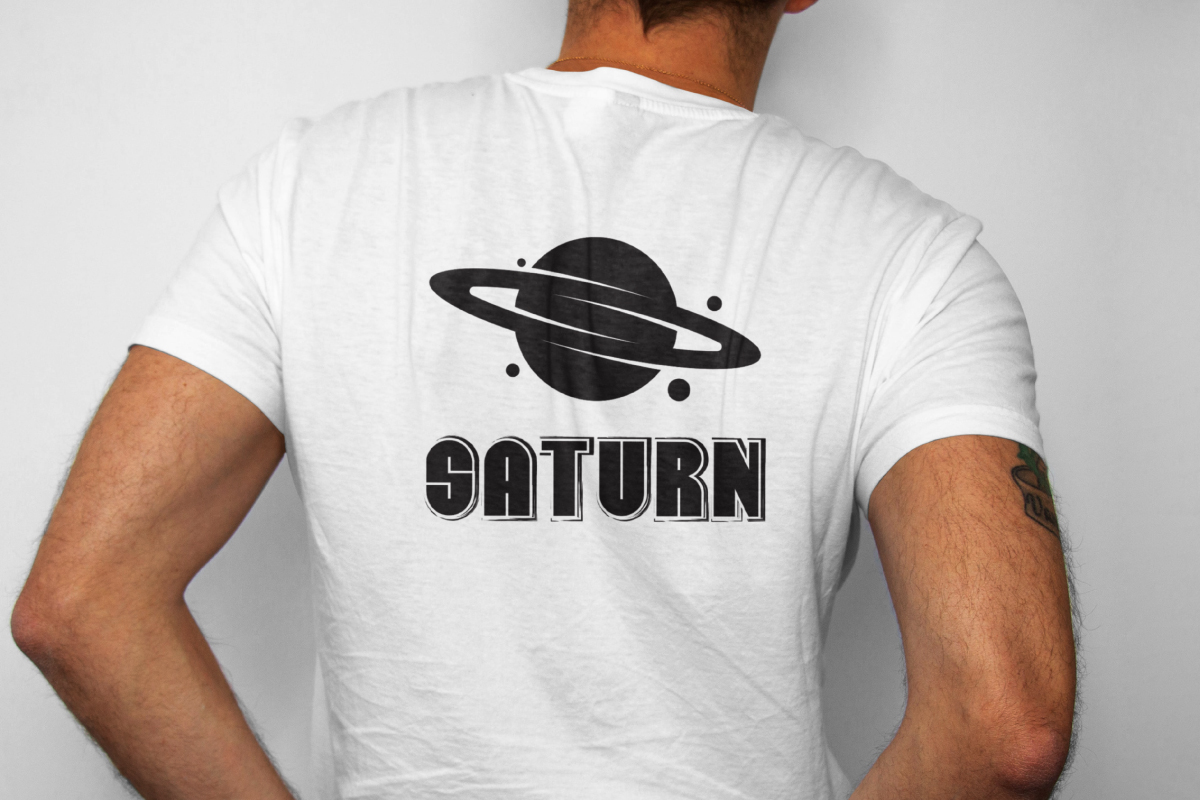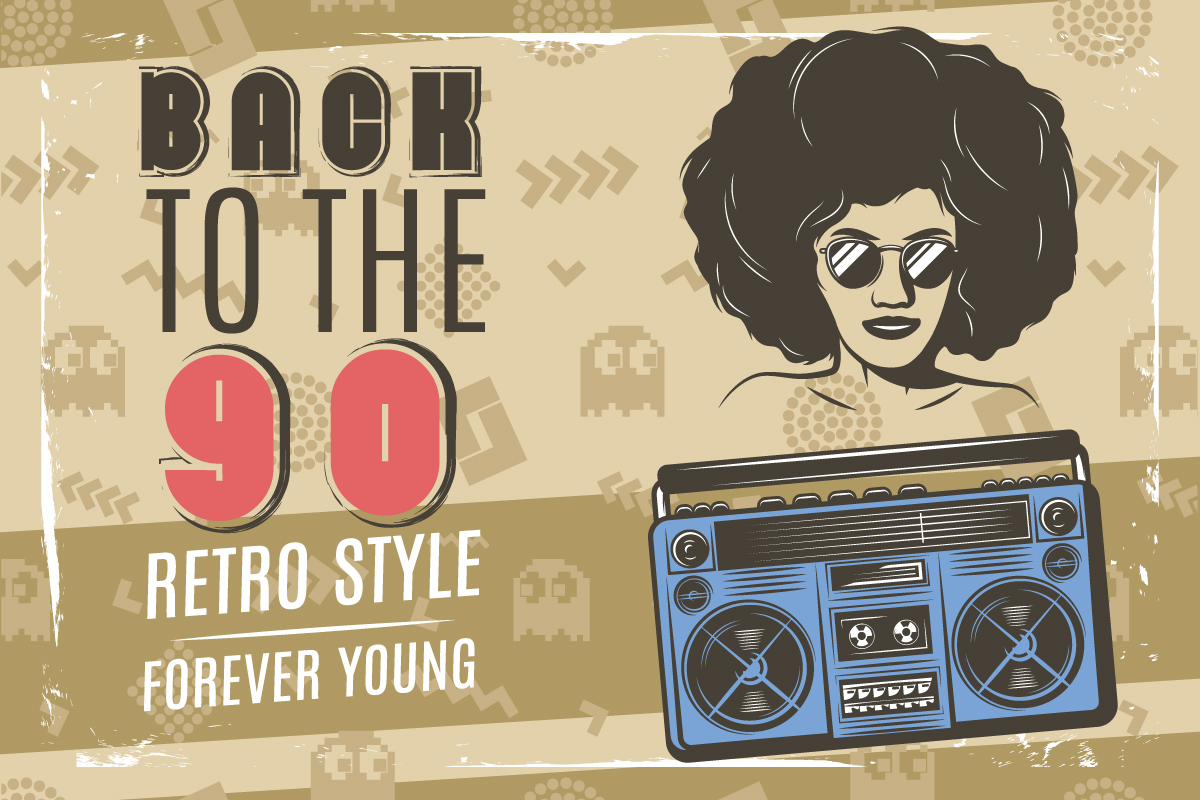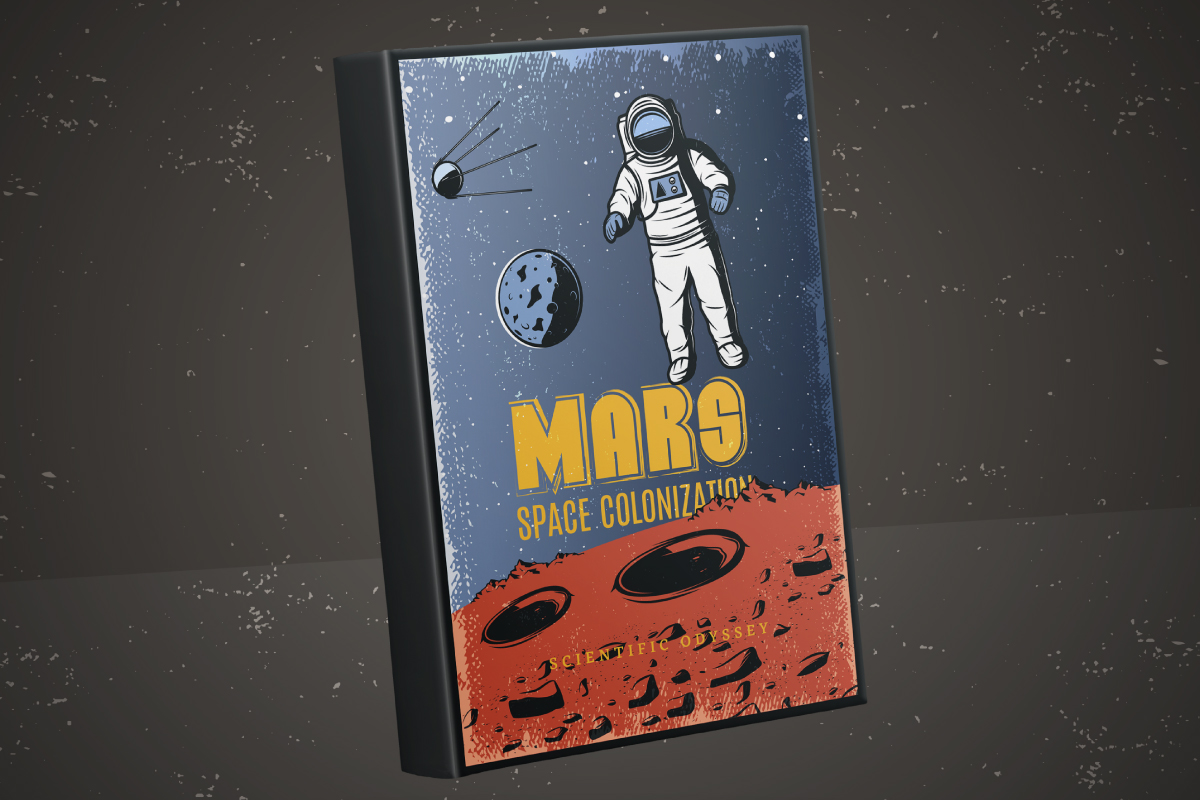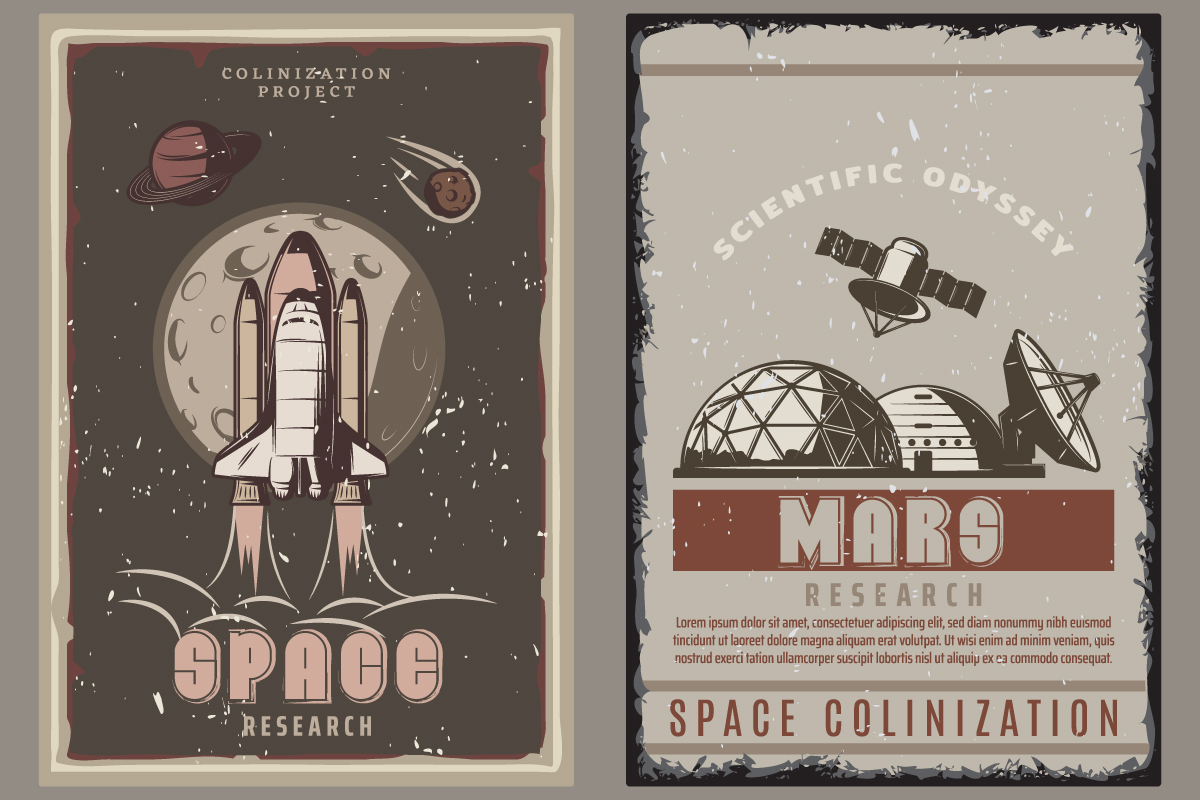
Dumpy Planet Display Font
This is a fun and big display font with comic theme style. The font will be awesome for brands, packaging, invitation, games. etc. Dumpy Planet Font will suit many industries and categories related to kids, humor, family etc. It will work well for books, packaging, toys, homewares etc